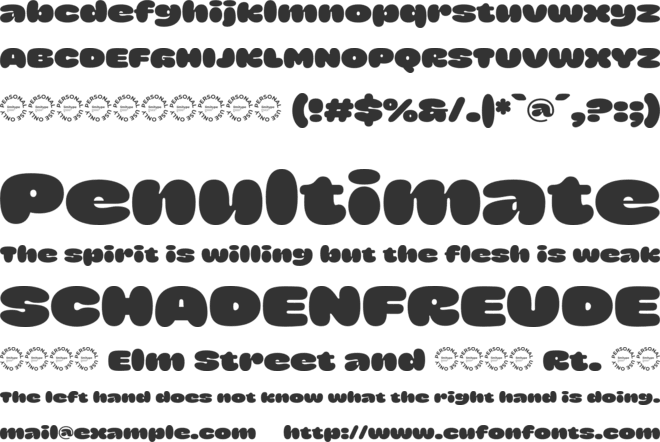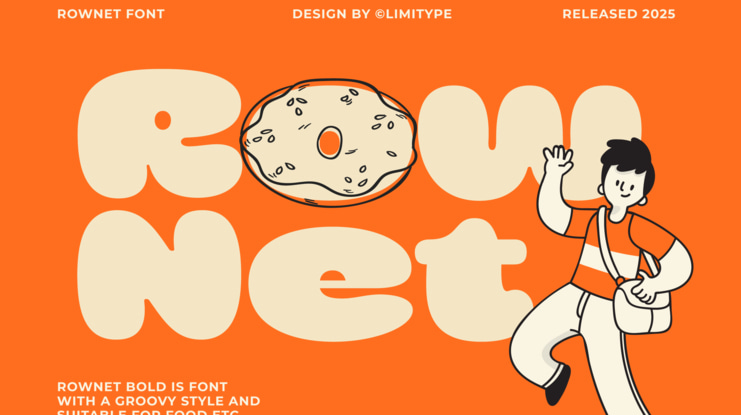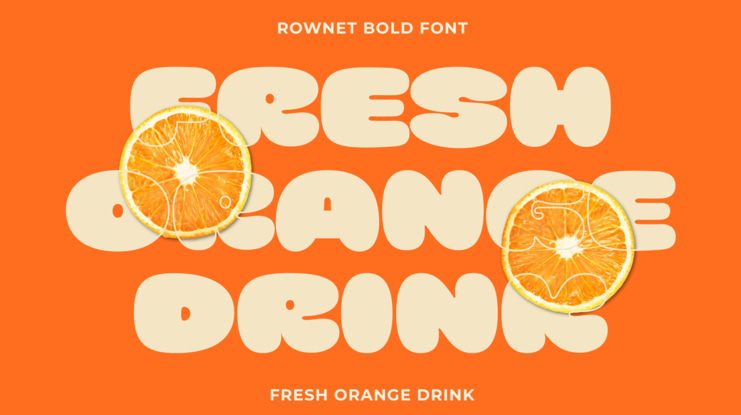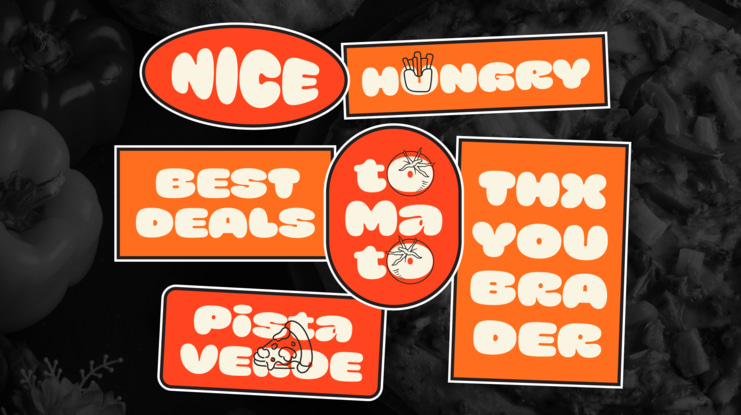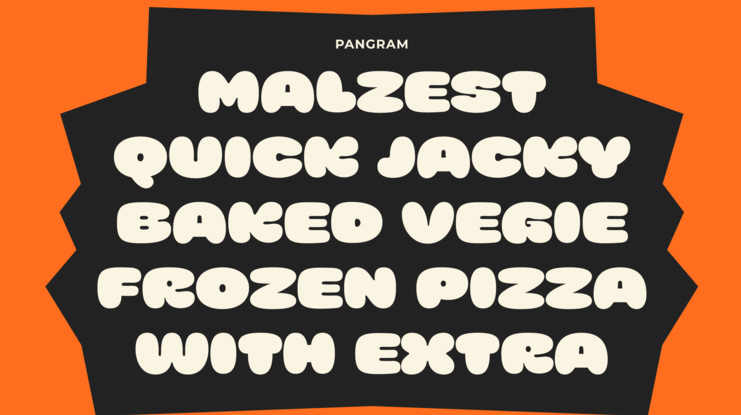
Rownet Rounded Bold Font
Rownet is a bold typeface with soft, rounded shapes crafted in a bubbly style that brings out a fun and playful feel. It works perfectly for food designs, branding, packaging, and headlines that need a bold, chubby, bubbly, and cheerful look.